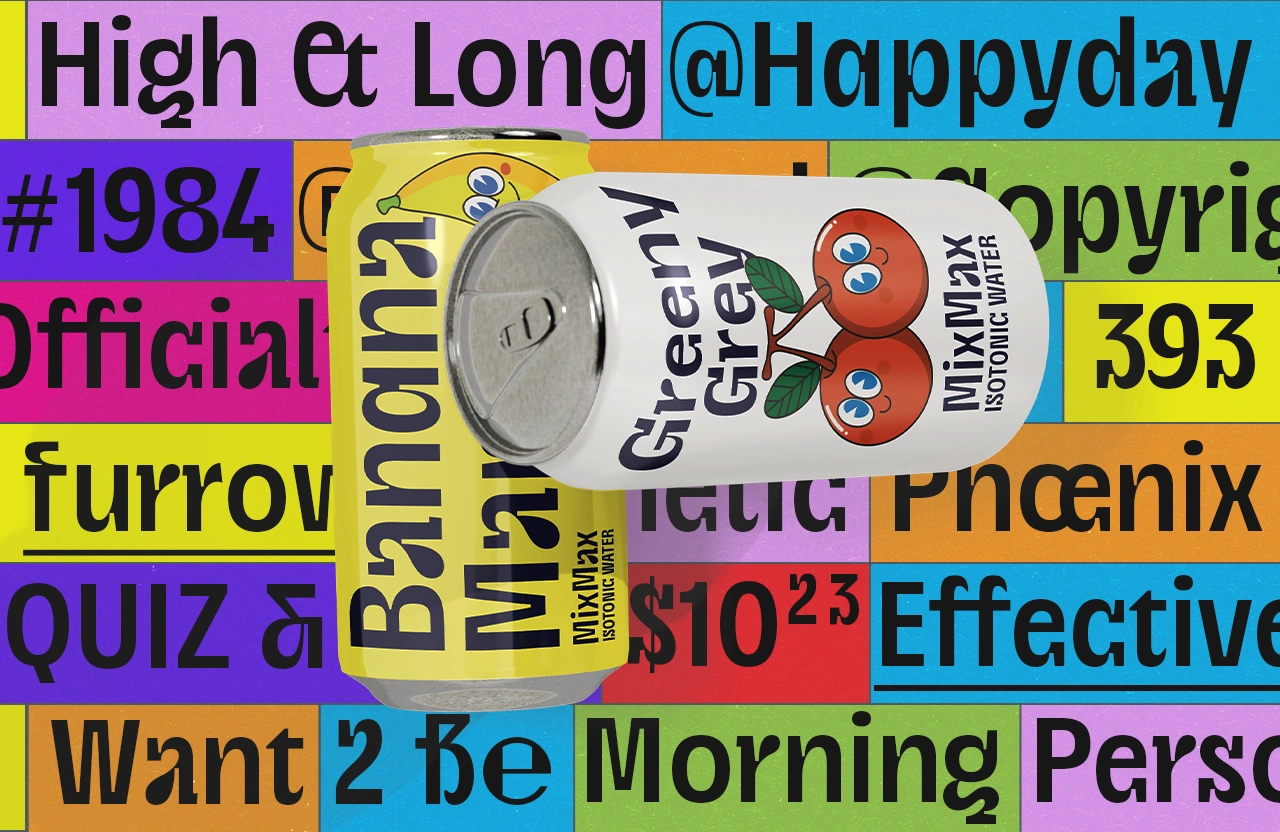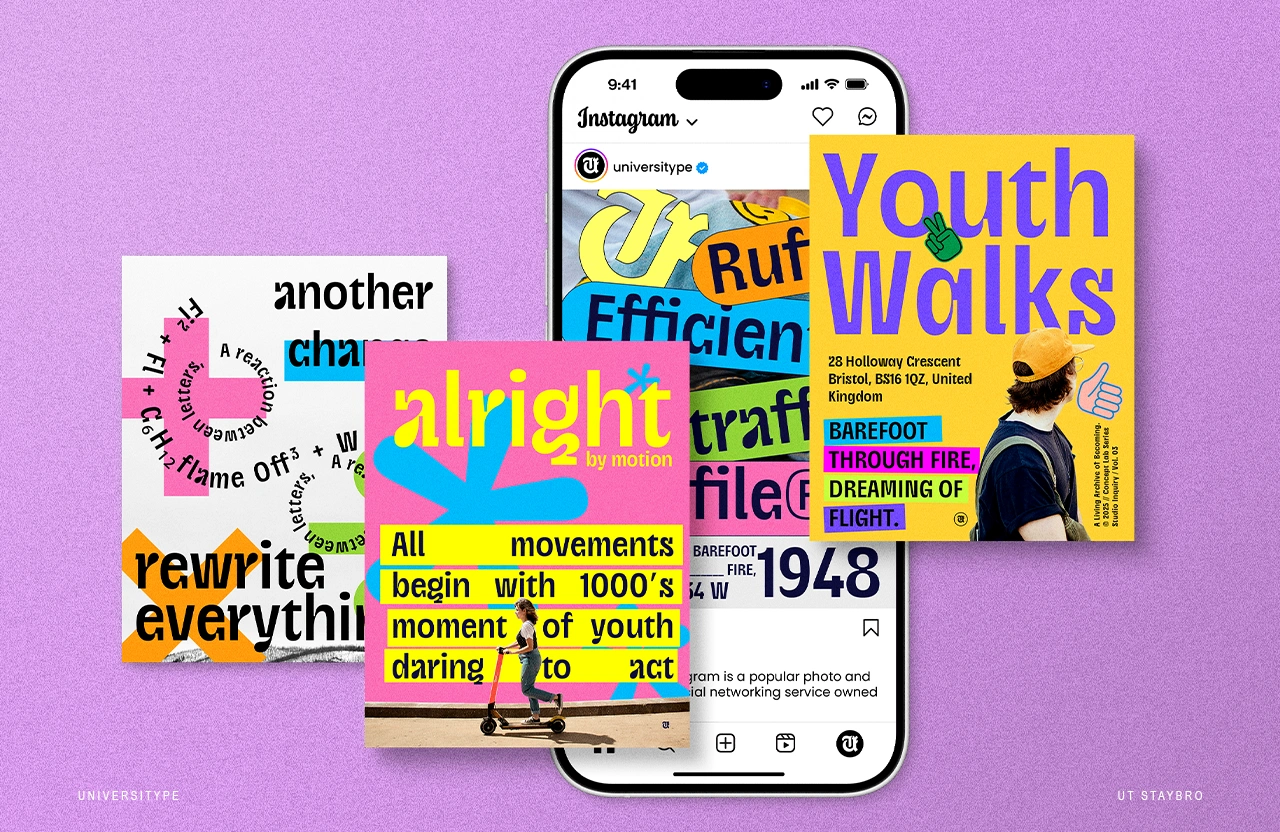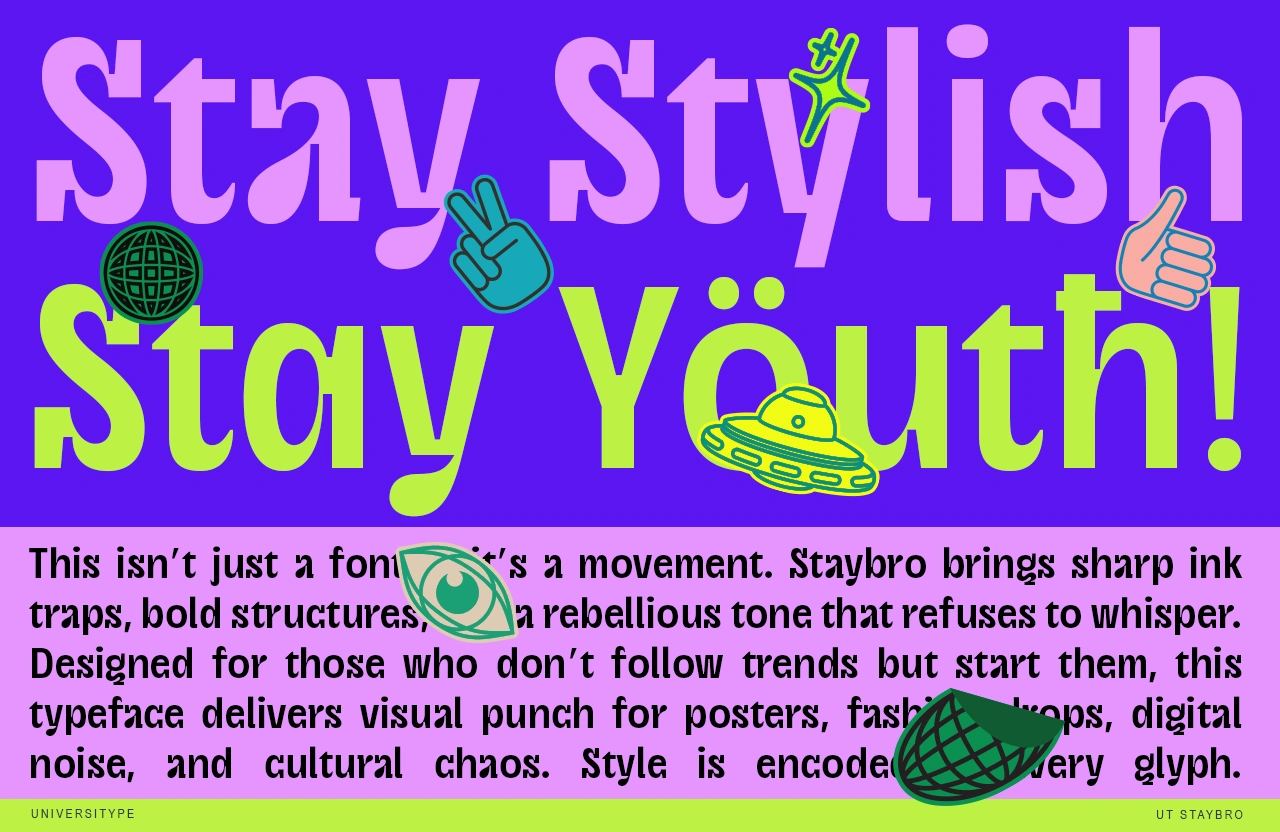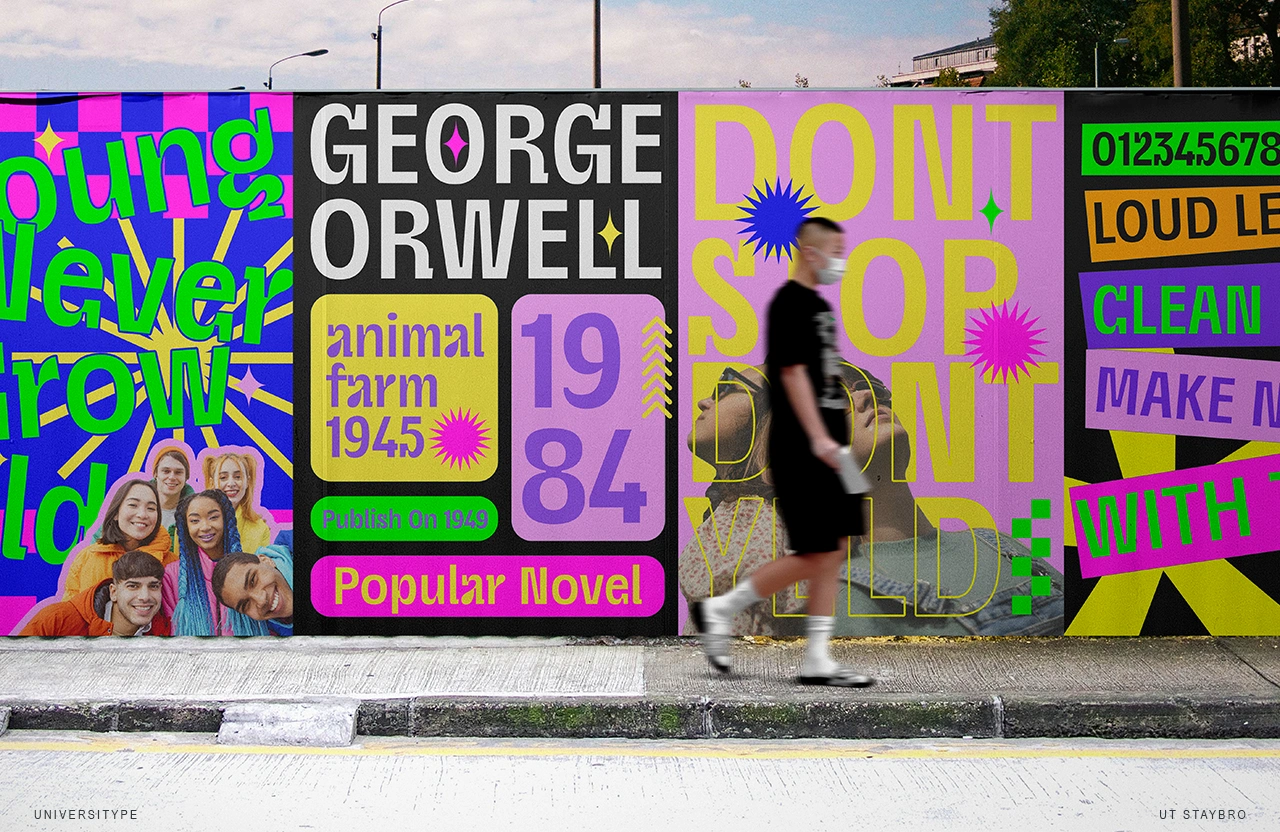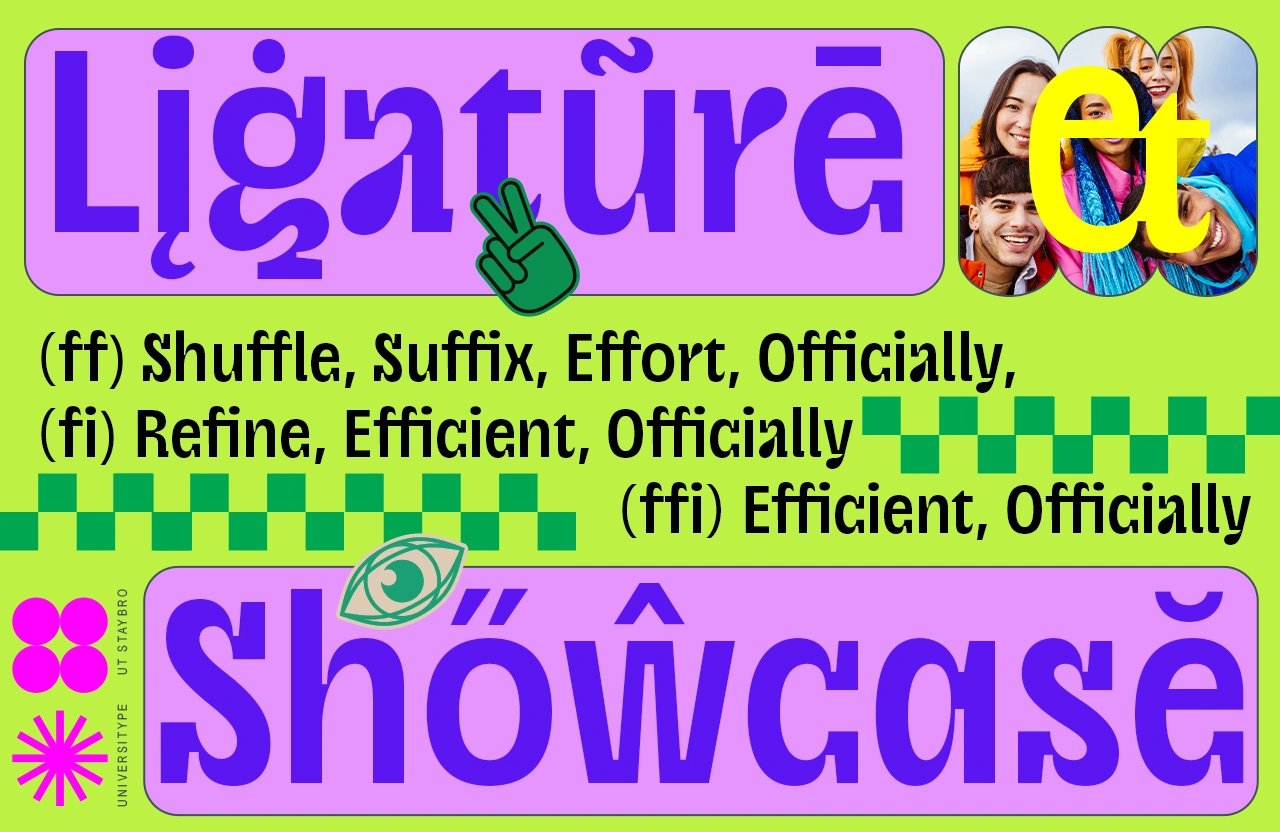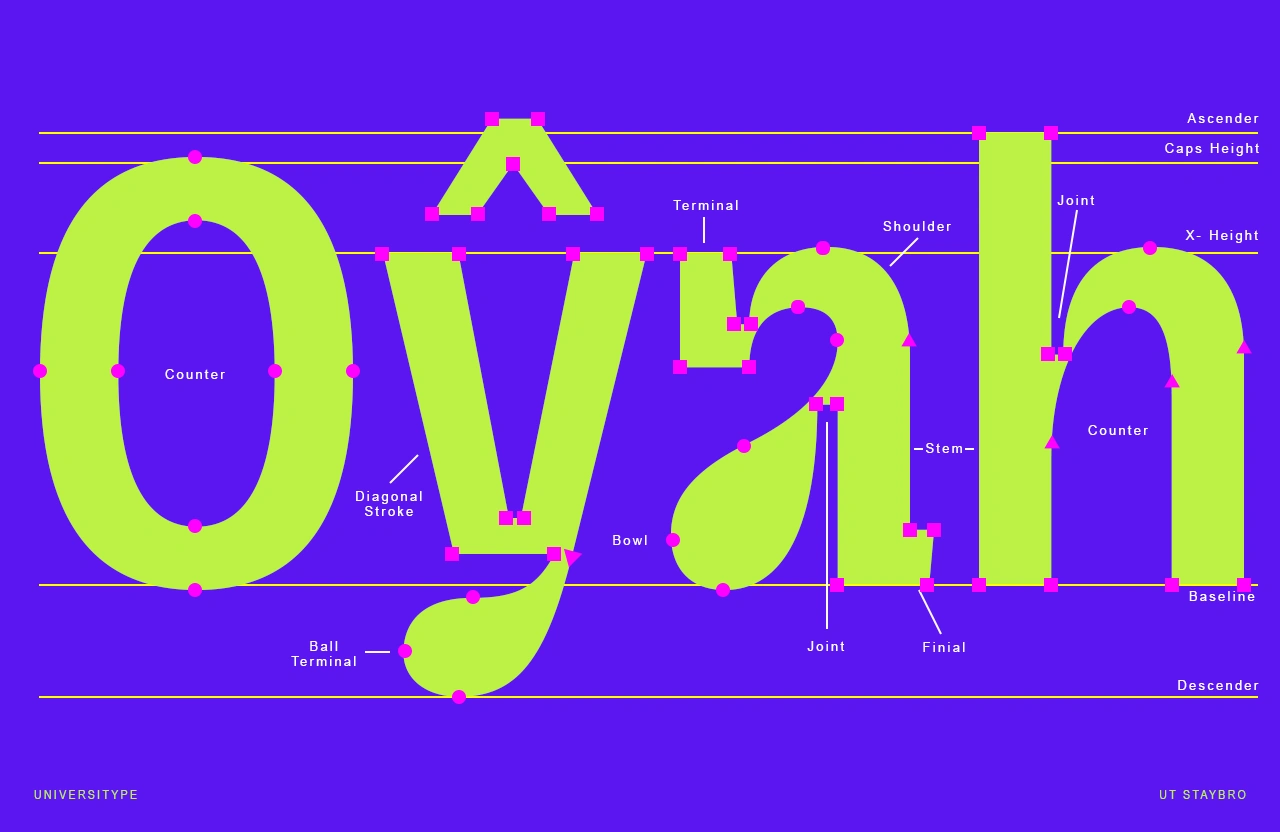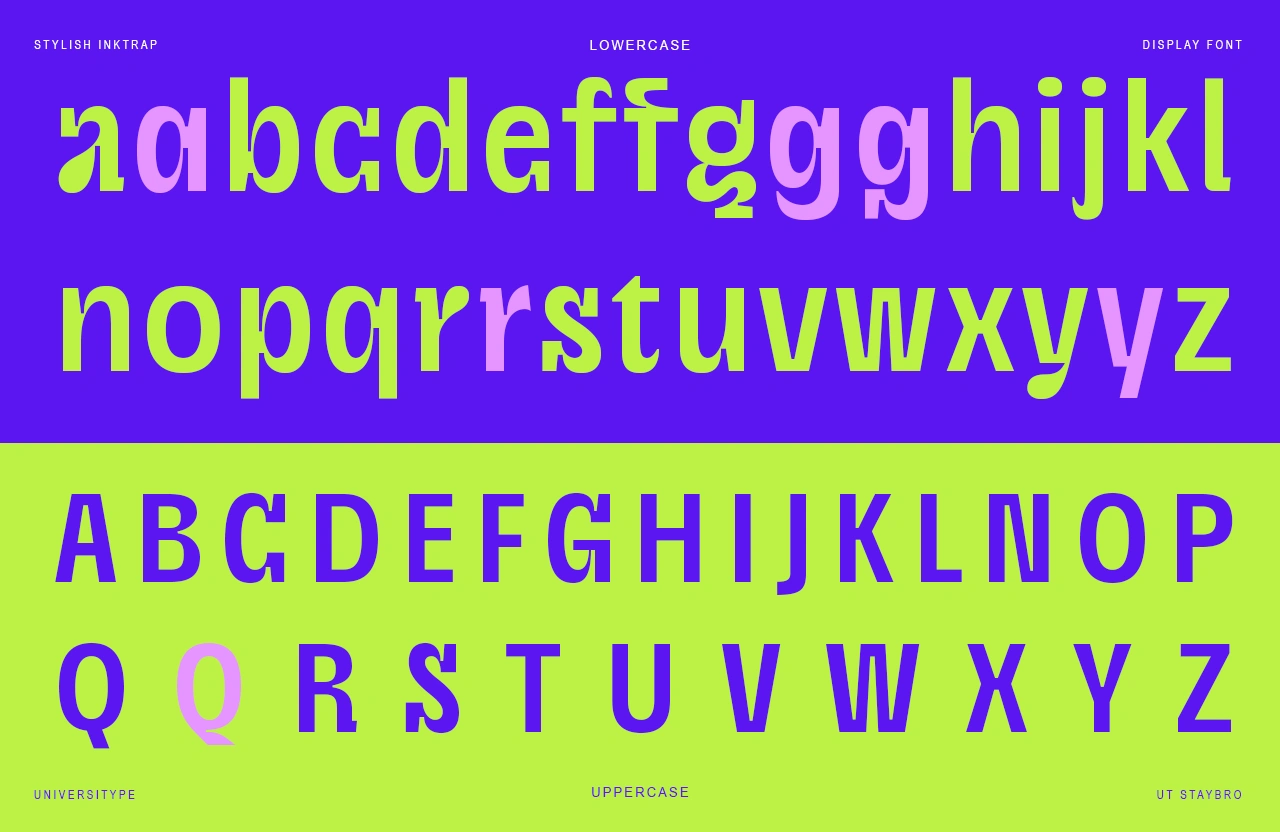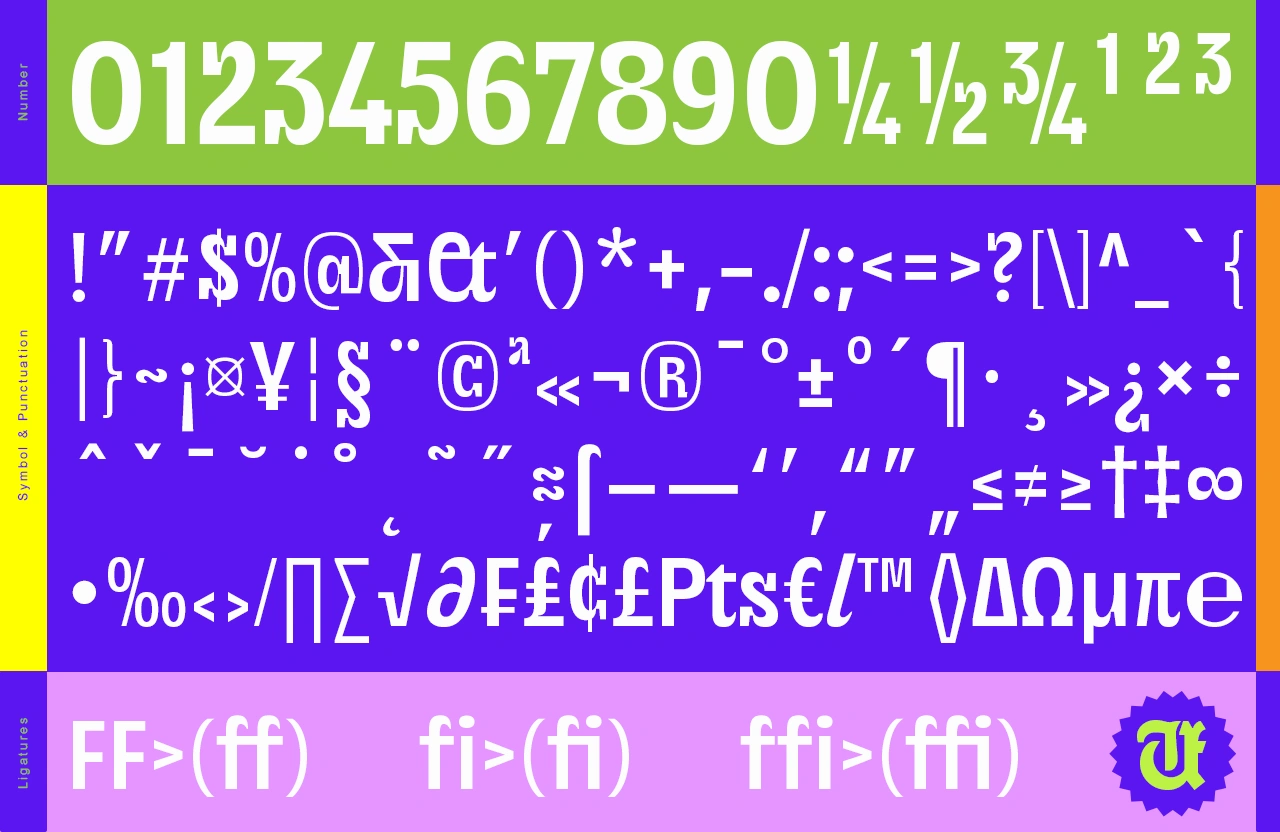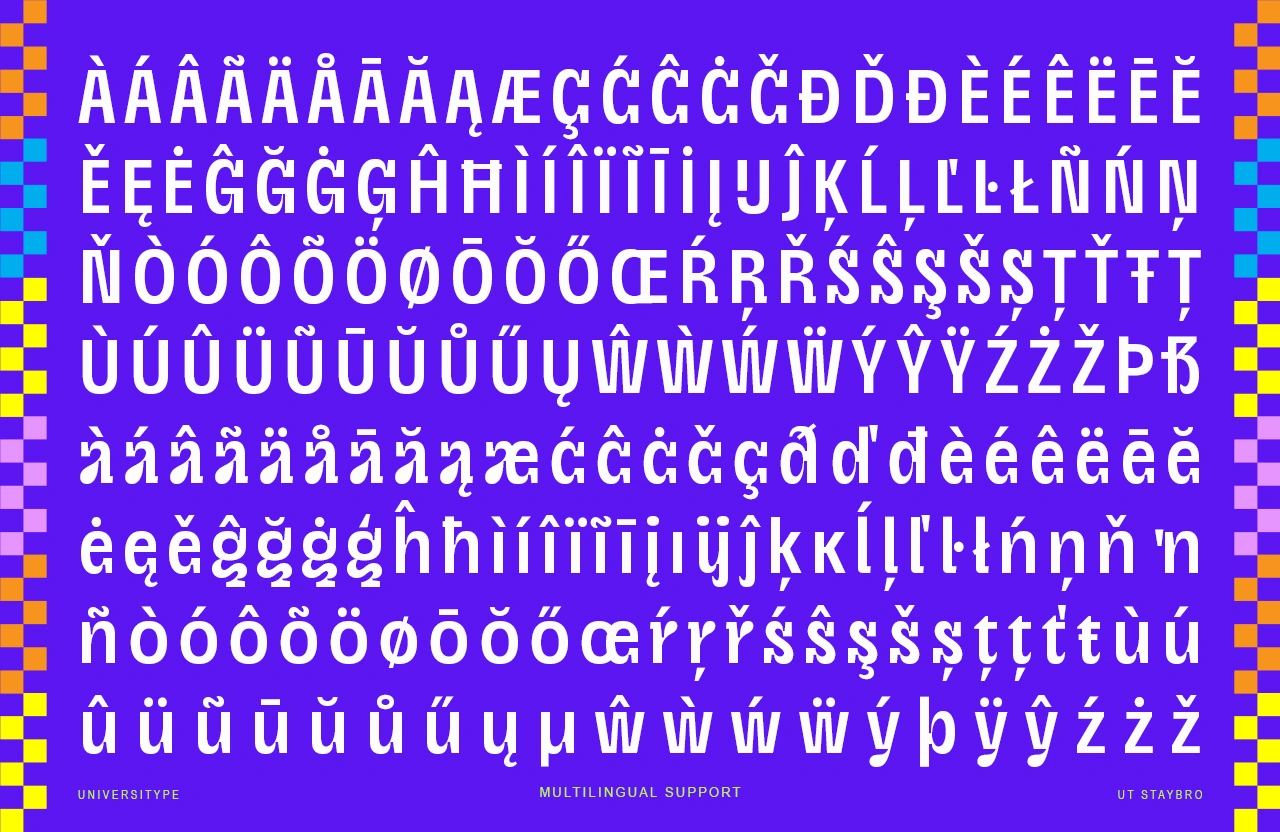
UT Staybro
UT Staybro isn’t here to whisper. It’s the font that walks in with confidence, owns the room, and leaves people talking. Built for creators who don’t shy away from being noticed, this display typeface balances chunky, heavy strokes with geometric precision and smooth rounded details—a mix that radiates both strength and approachability.
UT Staybro – Where Boldness Meets Playful Precision
UT Staybro isn’t here to whisper. It’s the font that walks in with confidence, owns the room, and leaves people talking. Built for creators who don’t shy away from being noticed, this display typeface balances chunky, heavy strokes with geometric precision and smooth rounded details—a mix that radiates both strength and approachability.
From the pulse of street art to the expressive energy of digital media, UT Staybro is your visual megaphone. Perfect for designs that demand attention, it turns words into graphic statements.
Who It’s For
• Graphic designers chasing high-impact visuals
• Marketers aiming for unforgettable campaigns
• Creative professionals who want type that’s as vibrant as their ideas
• Brands in fashion, music, entertainment—or anywhere youth culture thrives
What Makes UT Staybro Stand Out
• Power Weight — Thick, heavy strokes that dominate the page and screen
• Geometric Structure — Clean, modern framework with softened edges for a friendly vibe
• Dynamic Terminals — A mix of flat, rounded, and angled cuts keeps every letter lively
• High X-Height — Boosts readability across sizes, from giant posters to tight captions
• Expressive Proportions — Pronounced ascenders and descenders for drama and personality
• Cohesive Details — Numerals, punctuation, and symbols all flow seamlessly with the style
• Global Ready — Multilingual character set for worldwide reach
• Creative Variations — Alternate glyphs for added flexibility
The Story Behind the Strokes
UT Staybro was born from the raw, unfiltered energy of youth culture—the grit of graffiti walls, the colors of gig posters, the glitchy boldness of social feeds. It’s a celebration of individuality, designed for those who want their message to hit hard and linger.
Where It Works Best
• Posters & Flyers — Command attention for events, launches, and campaigns
• Branding & Logos — Give your brand an edge that’s impossible to forget
• Social Media Graphics — Stop the scroll with visuals that pop instantly
• Packaging — Make products leap off the shelf
• Editorial Headlines — Add punch to magazines, blogs, and news layouts